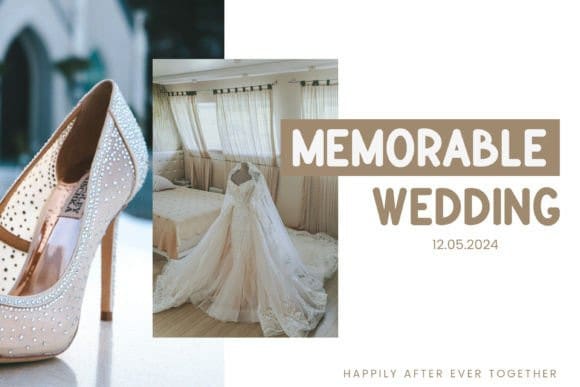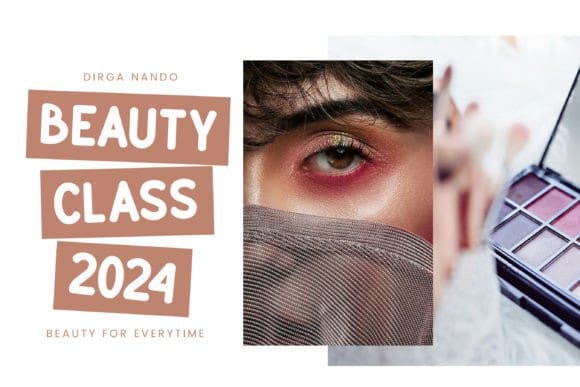
Malinva Font
Malinva Font, a bold and captivating sans-serif font designed to make your YouTube thumbnails stand out from the crowd. With its clean lines and geometric structure, Malinva exudes a sense of modernism and professionalism, perfectly complementing a wide range of YouTube content.